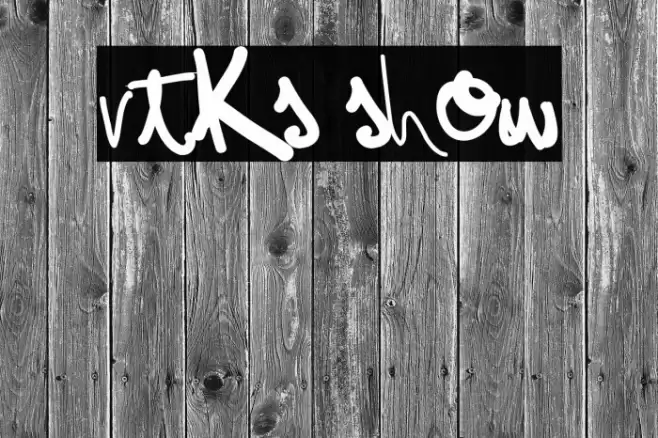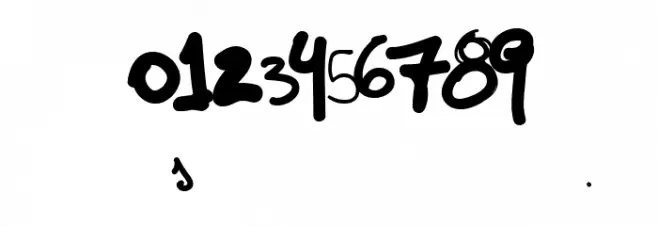
vtks show Font
vtks show Description
This font features a highly expressive and artistic style, characterized by its bold, flowing strokes and dynamic, handwritten appearance. The letters are irregular and vary in size, giving it a spontaneous and energetic feel. The uppercase and lowercase letters are distinct yet maintain a cohesive look, with some characters featuring exaggerated loops and curves. The numbers and special characters follow the same expressive style, adding to the overall artistic nature of the font. This font is ideal for projects that require a creative and unconventional touch.
An expressive, artistic font with bold, flowing strokes and a dynamic handwritten style from Uncategorized fonts.
- Proposed Projects: Ideal for artistic projects, creative posters, unique branding, or any design needing a bold, unconventional touch.
- Character Spacing: Tight
- Use Case: Logos, Posters, Artistic Designs